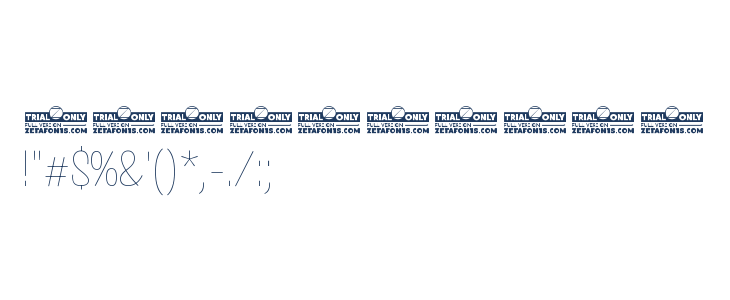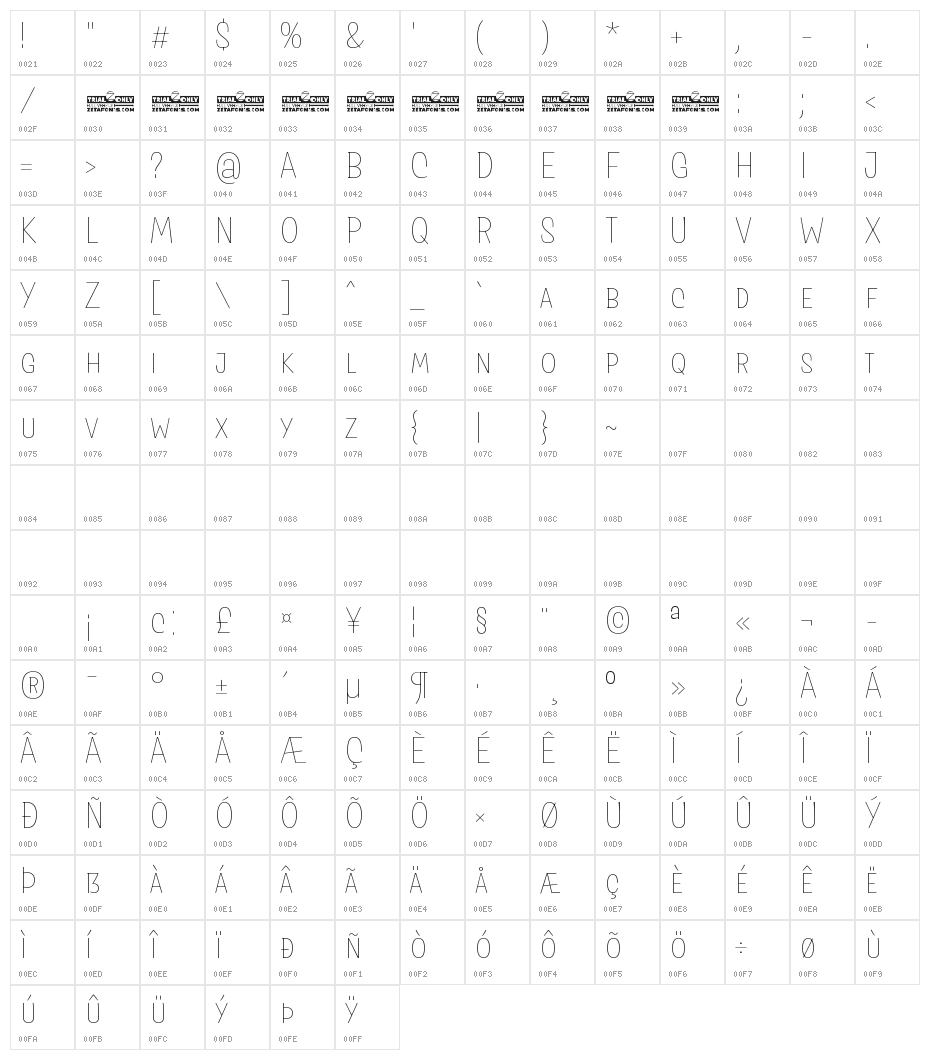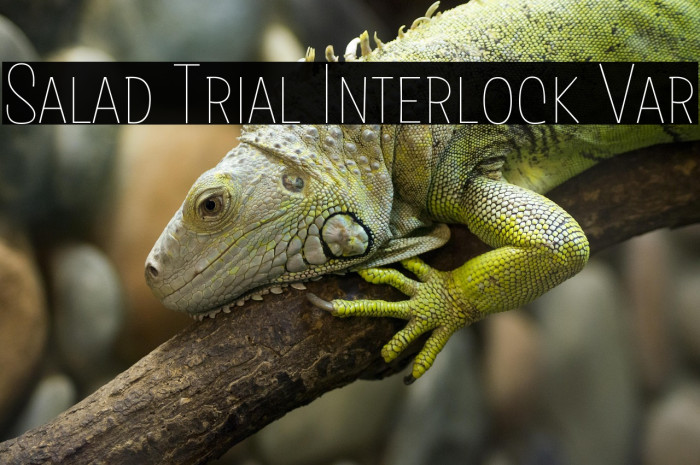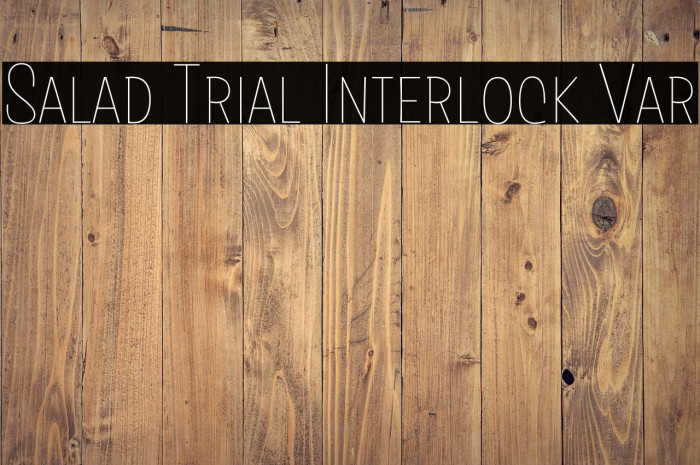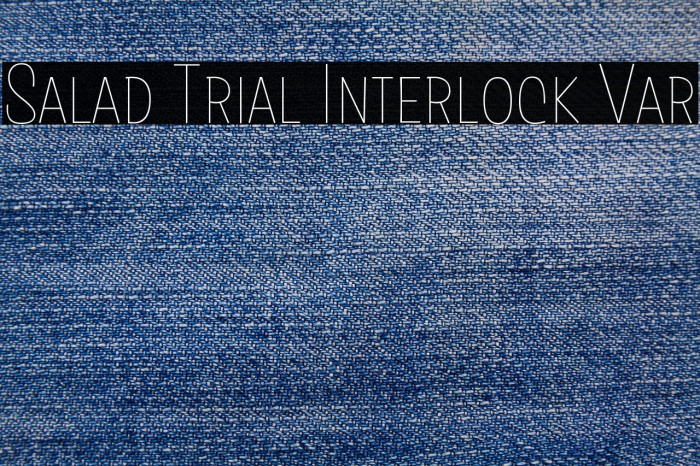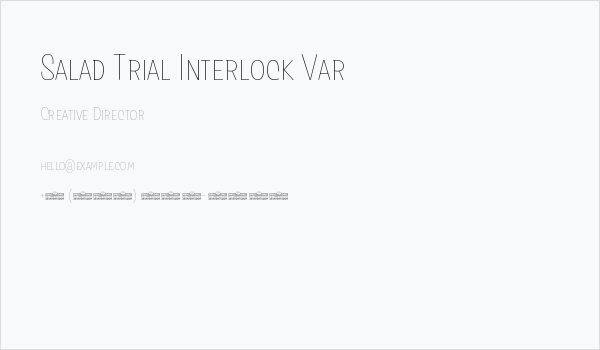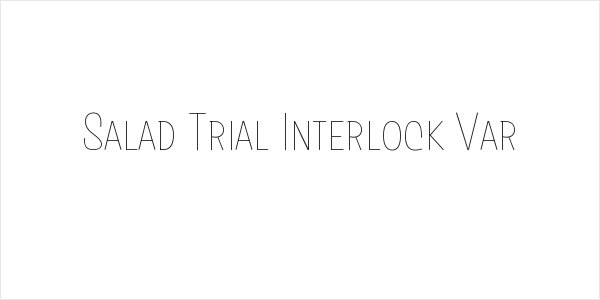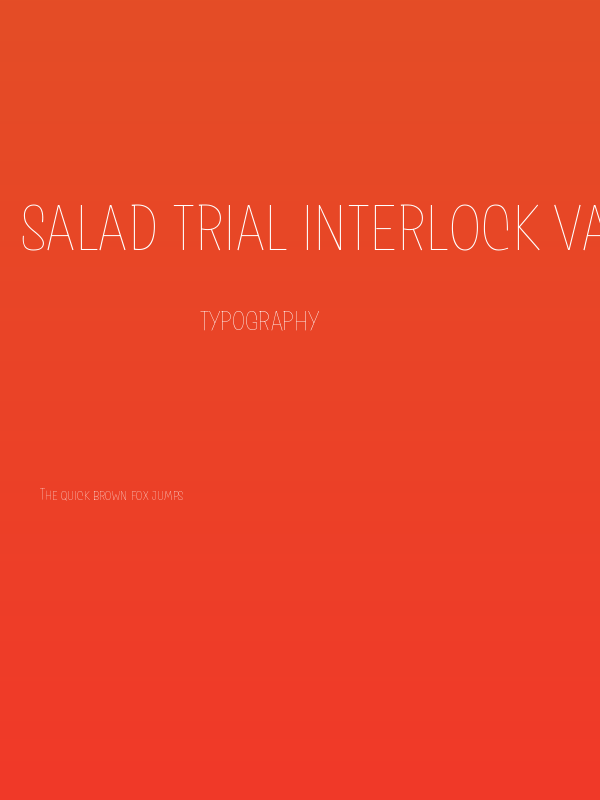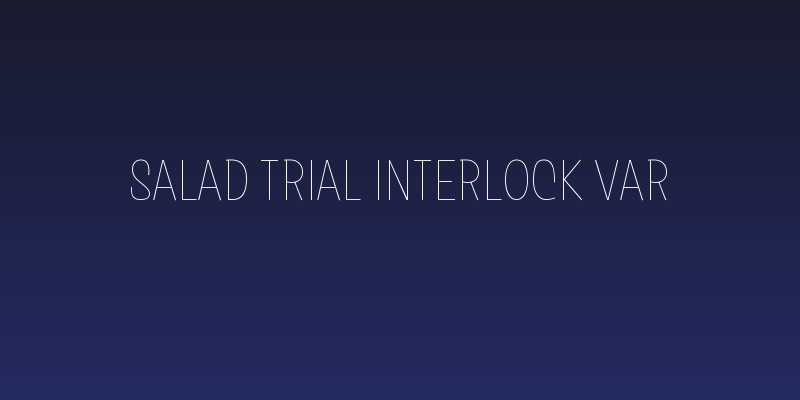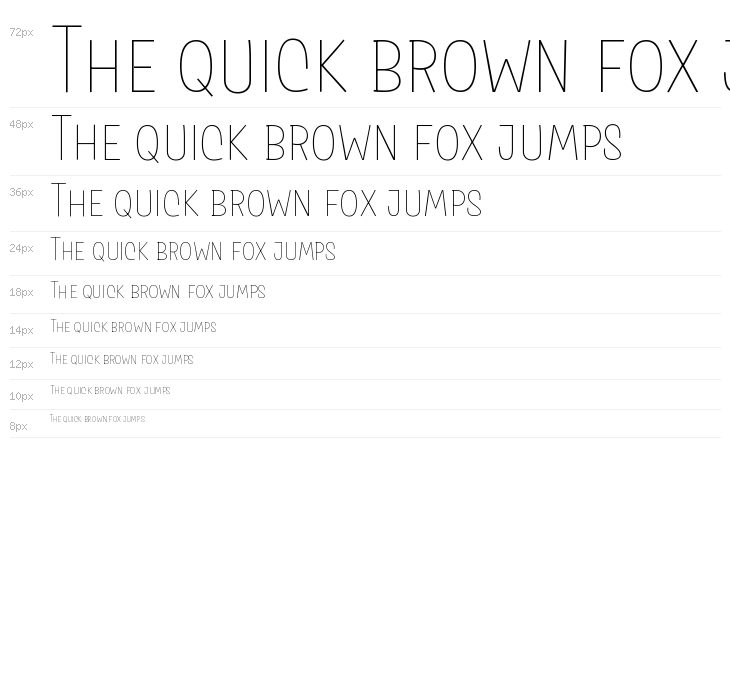
Salad Trial Interlock Var Font
Salad Trial Interlock Var Description
This font features a clean and minimalistic design with thin, elongated letterforms that give it a modern and sleek appearance. The characters are uniformly spaced, providing a balanced and airy feel. The uppercase and lowercase letters maintain a consistent style, with straight lines and sharp angles. The numerals and special characters follow the same design principles, ensuring a cohesive look across all glyphs. This font is ideal for projects that require a contemporary and sophisticated touch.
| Proposed Projects | Ideal for modern branding, minimalist posters, sleek website headers, and contemporary product packaging. |